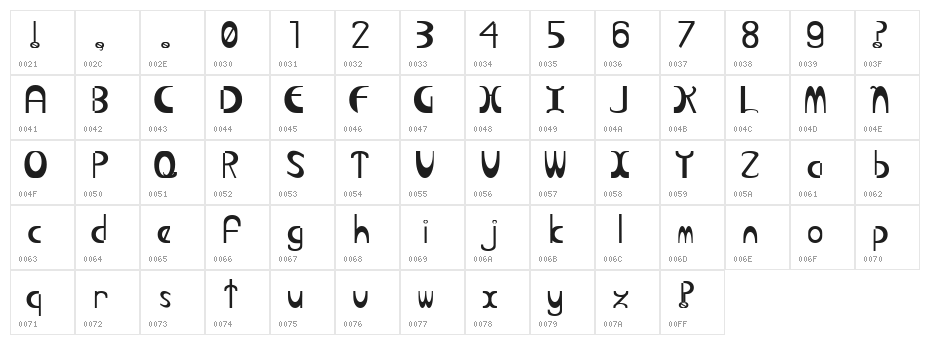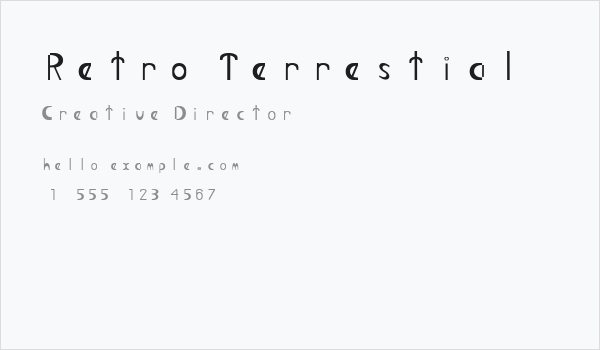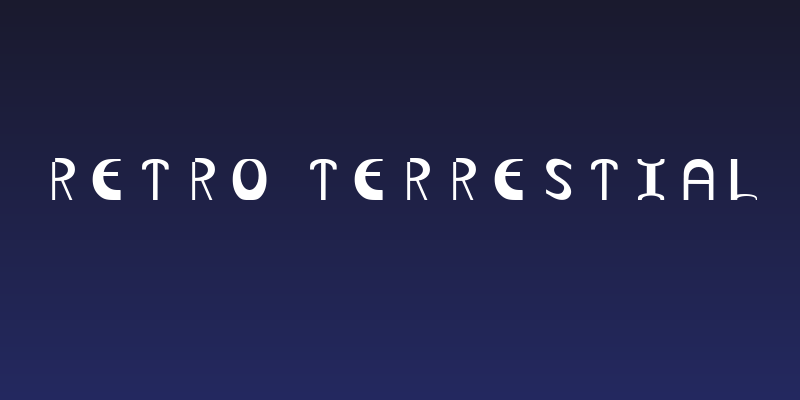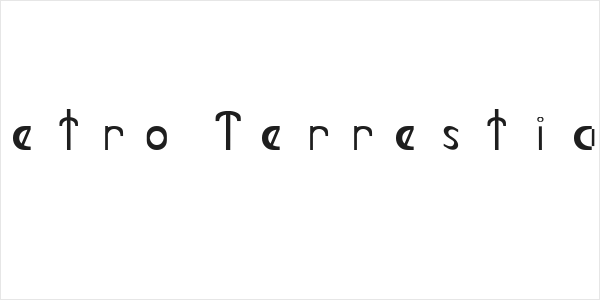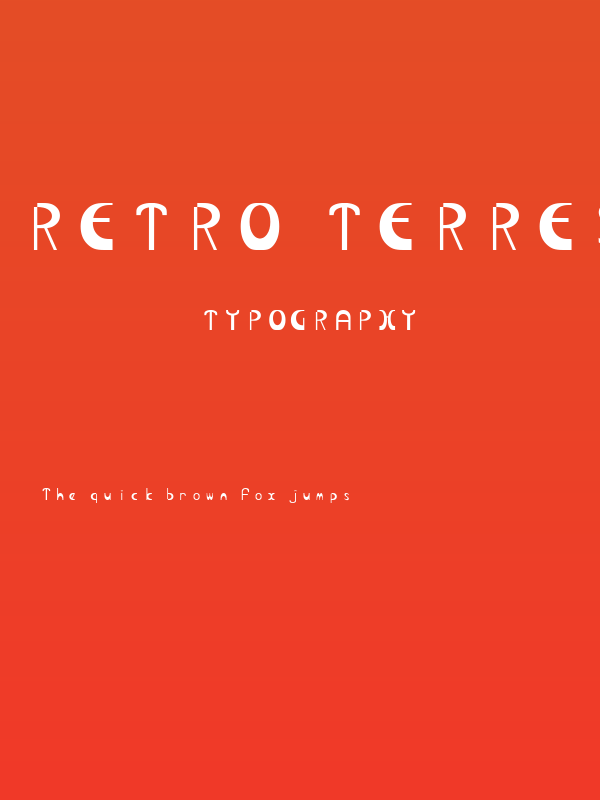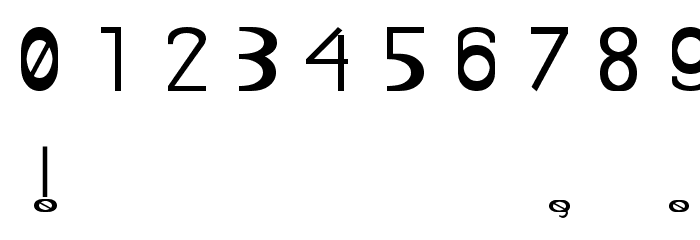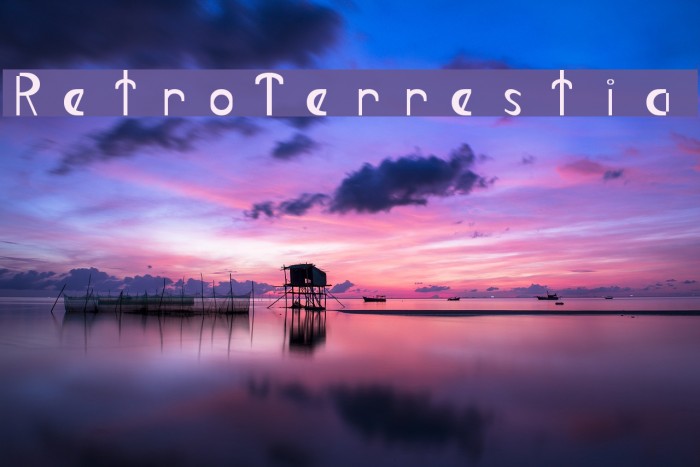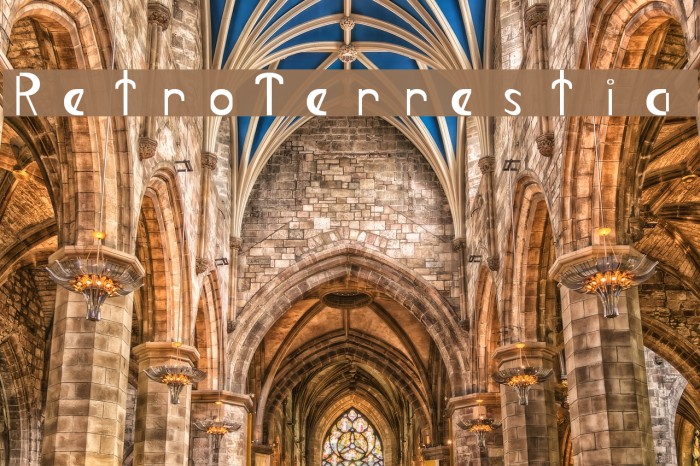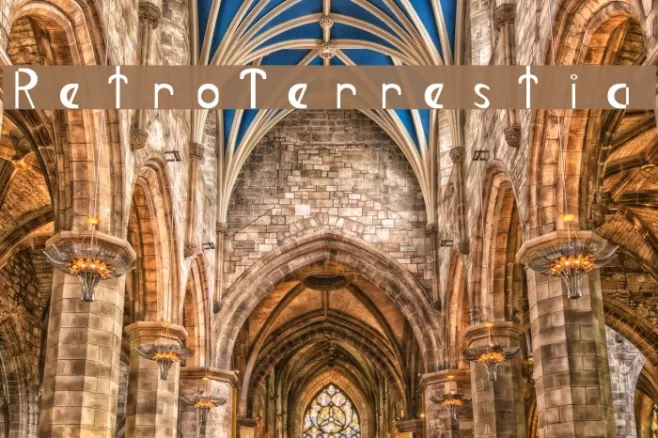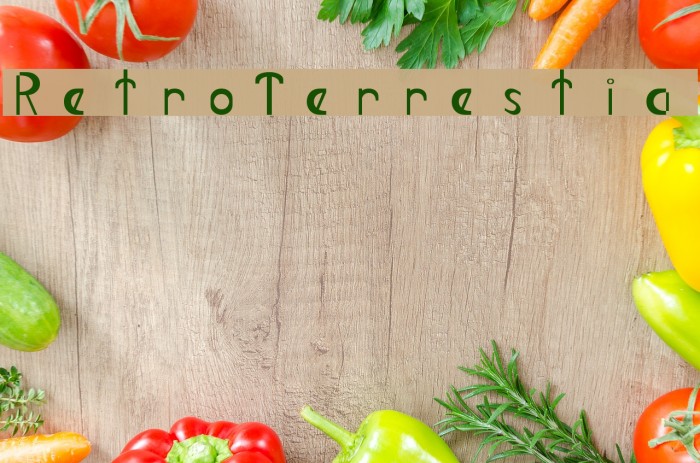
Retro-Terrestial Font
Retro-Terrestial Description
This font exhibits a unique blend of retro and futuristic elements, characterized by its bold and geometric letterforms. The uppercase letters feature distinct curves and sharp angles, creating a dynamic and eye-catching appearance. The lowercase letters maintain a consistent style, with rounded edges and a modern twist. Numbers are designed with a similar aesthetic, ensuring uniformity across the typeface. Special characters are stylized to match the overall theme, adding to the font's versatility. The font's design is both playful and sophisticated, making it suitable for a variety of creative projects.
| Overall Style | Retro-Futuristic |
| Proposed Projects | Ideal for branding, posters, album covers, and digital art projects. |